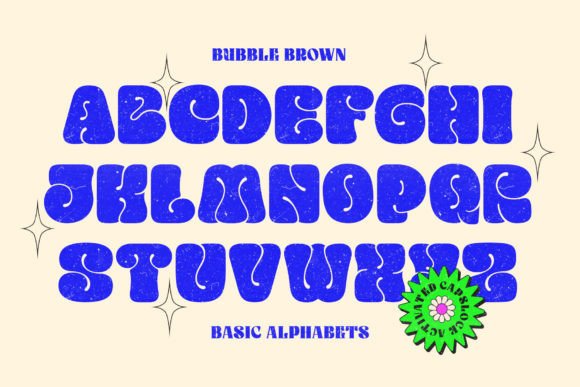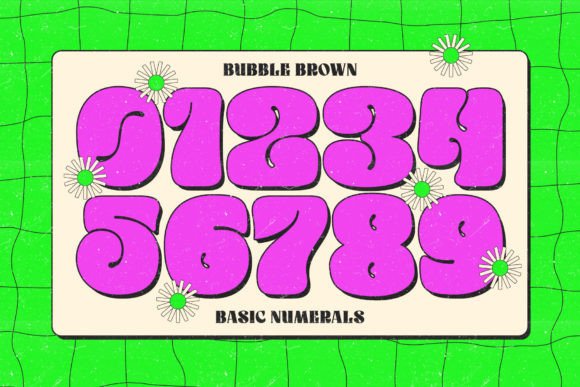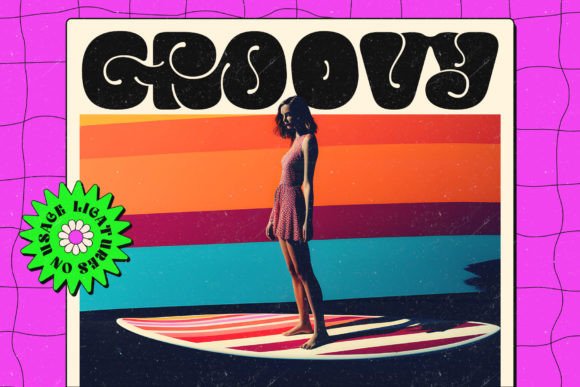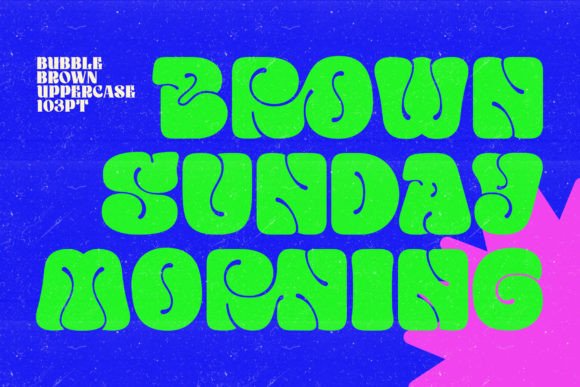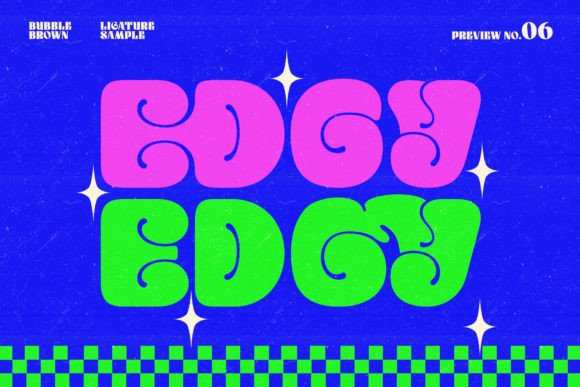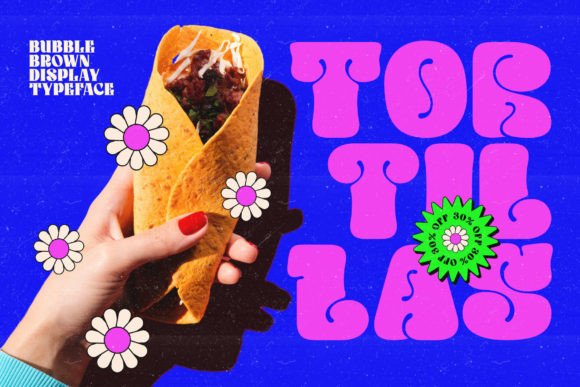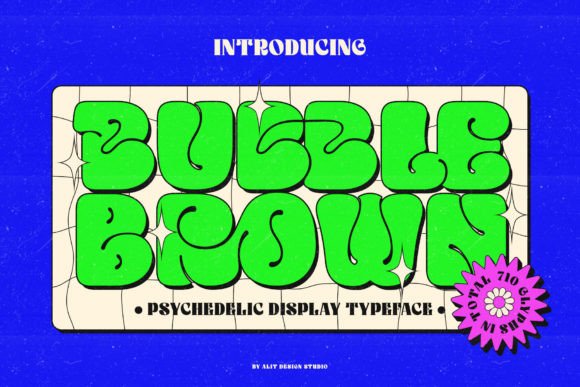
Bubble Brown Font: Add a Touch of Whimsy to Your Designs
Are you looking for a font that can add a playful and cheerful touch to your designs? Look no further than Bubble Brown, an exciting and playful bubble display font that’s perfect for a variety of design projects. In this article, we’ll take a closer look at the features and benefits of Bubble Brown, and explore how you can use it to create engaging and visually appealing designs.
What is Bubble Brown?
Bubble Brown is a unique and lively font that features a bubble display style with a fun and engaging aesthetic. The font combines bubbles and letters in a creative and playful way, making it perfect for designs that require a touch of whimsy. With its alternate ligature style, Bubble Brown offers a fresh and exciting take on traditional typography.
Key Features of Bubble Brown
- Unique Alternate Ligature Style: Bubble Brown features a unique alternate ligature style that combines bubbles and letters, creating a fun and engaging visual experience.
- Support for PUA Unicode: The font supports PUA Unicode, which means you can access the font’s extensive character set through private use area codes, giving you even more freedom to customize and personalize your designs.
- Lively and Playful Aesthetic: Bubble Brown has a lively and playful aesthetic that’s perfect for designs aimed at children, toys, games, or anything that requires a cheerful and vibrant look.
Use Cases for Bubble Brown
Bubble Brown is a versatile font that can be used for a variety of design projects, including:
- Children’s Products: The font’s playful and cheerful aesthetic makes it perfect for designs aimed at children, such as toys, games, and educational materials.
- Posters and Flyers: Bubble Brown can add a touch of whimsy and fun to posters and flyers, making them stand out and grab attention.
- Logos and Branding: The font’s unique and playful style makes it perfect for logos and branding materials that require a fresh and exciting look.
- Packaging Design: Bubble Brown can add a playful and cheerful touch to packaging design, making products stand out on store shelves.
- Web Design: The font can be used for web design projects, such as headings, titles, and other typographic elements.
Tips for Using Bubble Brown
Here are some tips for using Bubble Brown in your designs:
- Experiment with Ligatures: Take advantage of the font’s alternate ligature style by experimenting with different character combinations to create unique and visually appealing typographic compositions.
- Use it as a Headline Font: Bubble Brown is perfect for use as a headline font, adding a touch of whimsy and fun to your designs.
- Pair it with Other Fonts: The font can be paired with other fonts to create a unique and visually appealing typographic combination.
Bubble Brown is a fun and playful bubble display font that’s perfect for adding a touch of whimsy to your designs. With its unique alternate ligature style, support for PUA Unicode, and lively aesthetic, it’s perfect for a variety of design projects, from children’s products to posters and flyers. By following the tips outlined in this article, you can make the most of Bubble Brown and create engaging and visually appealing designs that stand out.
Get Creative with Bubble Brown
So why wait? Get creative with Bubble Brown today and add a touch of whimsy to your designs. With its versatility and playfulness, this font is sure to bring joy and excitement to any project it graces.